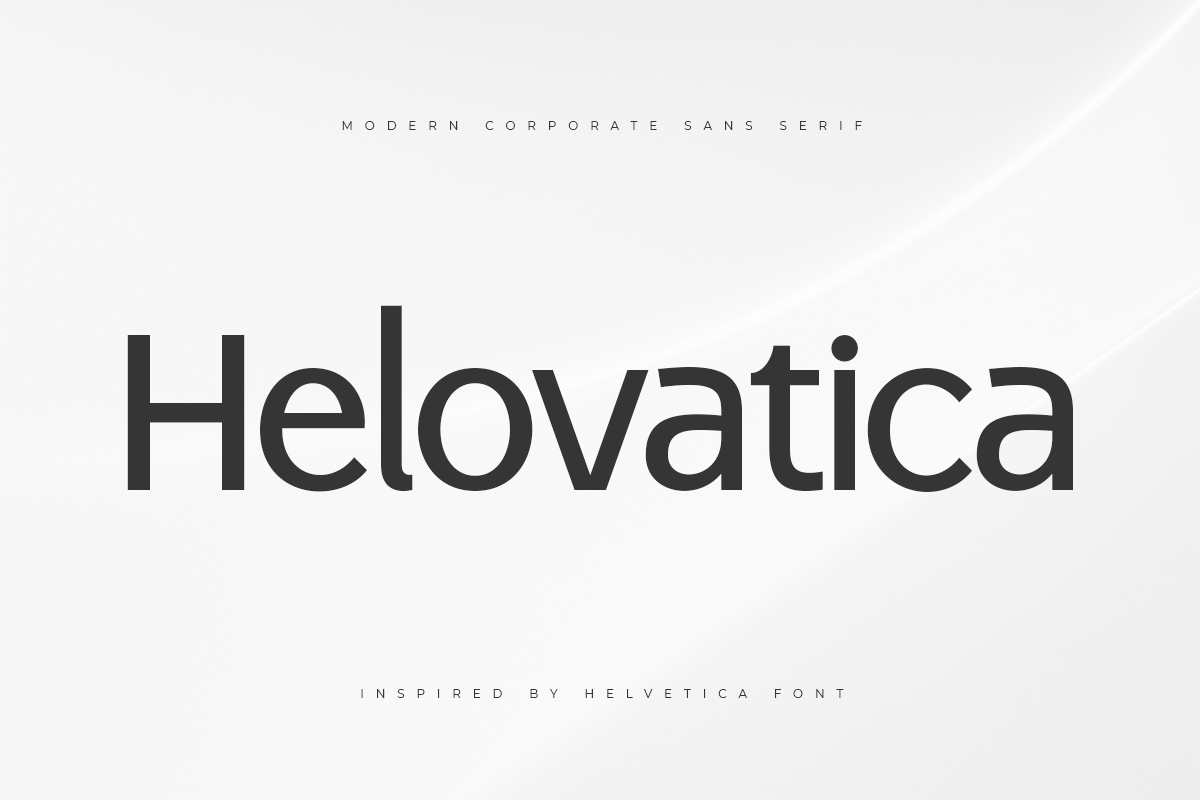
-Modern Corporate Sans Serif
Helovatica is a Modern Corporate Sans Serif - Personal Use Only
A new Sans serif that we created special for modern feel, unique shape and corporate style that will add value of your brand. It so nice to leverage designer or product owner that need solutions to make their design look more unique and modern.